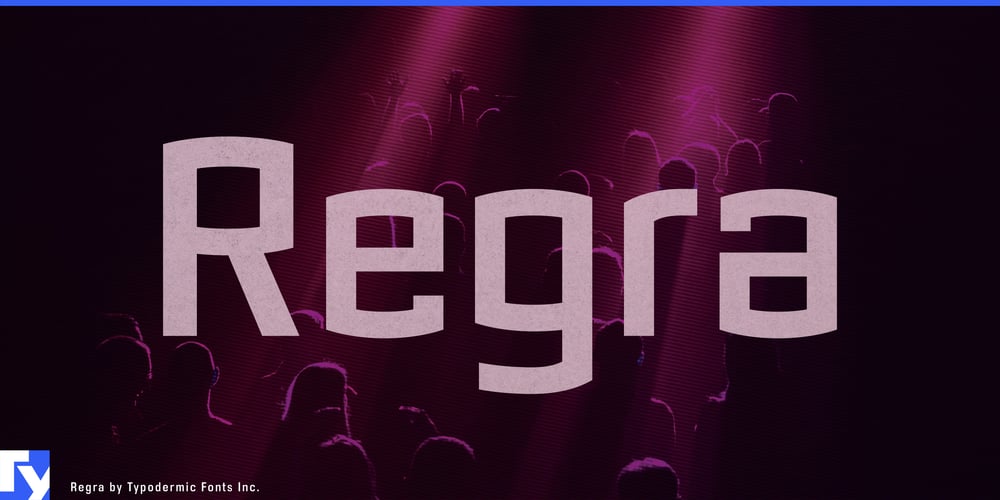
Regra
Regra font
Regra Font Family was designed by Ray Larabie and published by Typodermic. Regra contains 6 styles and family package options. Welcome to the cutting edge of design with Regra, the typeface that turns your message into a blockbuster production. This is a visual effects powerhouse, ready to render your words with pixel-perfect precision and cinematic impact.Picture Regra’s squared, high-tech letterforms don’t just sit on the page—they leap off it, creating a visual experience as immersive as the latest VR headset. With three weights and their italic counterparts, Regra offers more range than a Hollywood green screen. From the sleek, streamlined lighter weights that glide across your designs like a perfectly executed tracking shot, to the bold styles that deliver your message with the impact of a summer blockbuster, Regra ensures your typography is always ready for its close-up.Regra’s unique industrial aesthetic isn’t just eye candy—it’s the special effects that turn your designs into box office hits. Those sharp angles and clean lines? They’re the typographic equivalent of cutting-edge CGI, creating a world of sophistication and technological prowess that captivates your audience from the opening credits to the final scene. This typeface doesn’t just cross language barriers—it breaks them down like a perfectly choreographed action sequence. Supporting a wide array of Latin-based European writing systems, Regra ensures your message plays well in markets from Afrikaans to Zulu. It’s your typographic passport to global design domination.Why settle for typography that merely exists when you can have letters that perform? Get Regra now and watch as it transforms your designs from low-budget productions to summer blockbusters. Whether you’re crafting a user interface that needs to dazzle like the latest sci-fi epic, or designing a logo that demands more star power than a Hollywood A-lister, Regra is ready to steal the show.